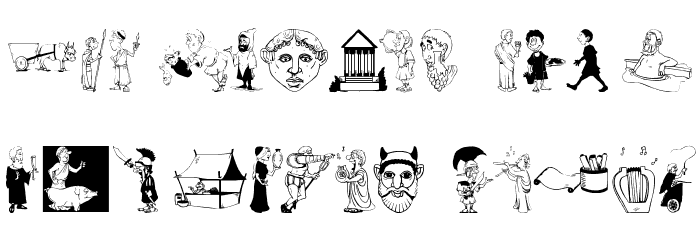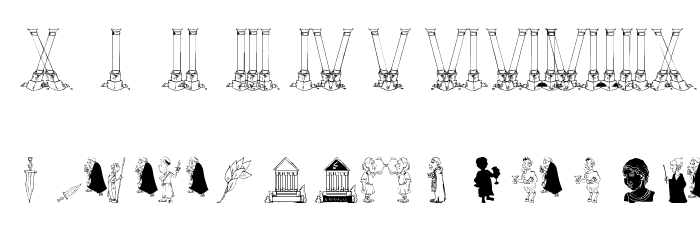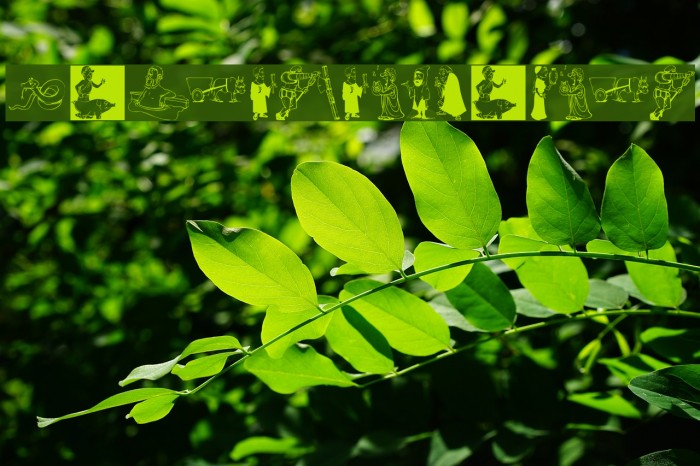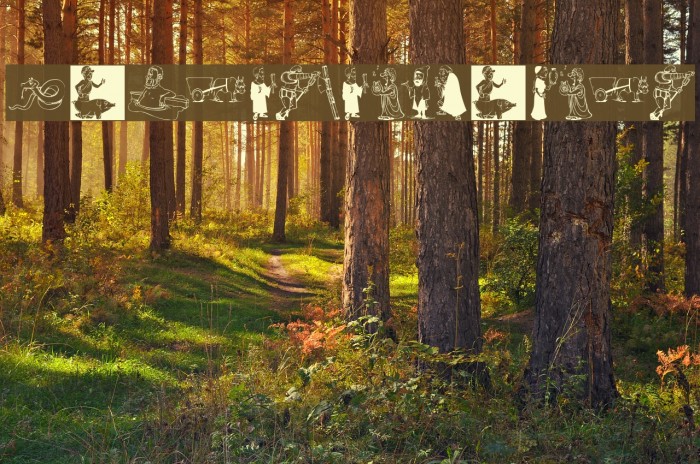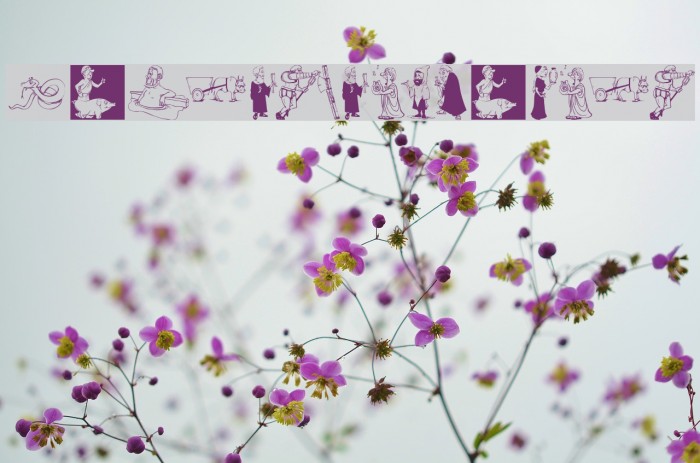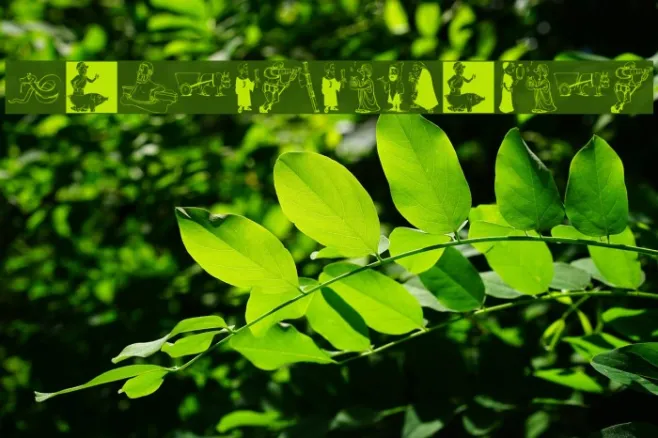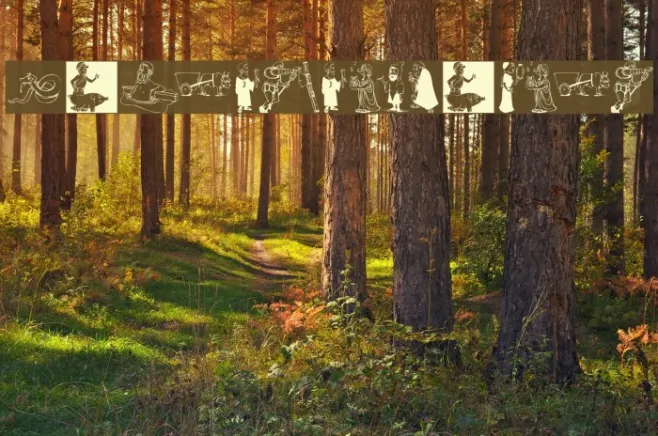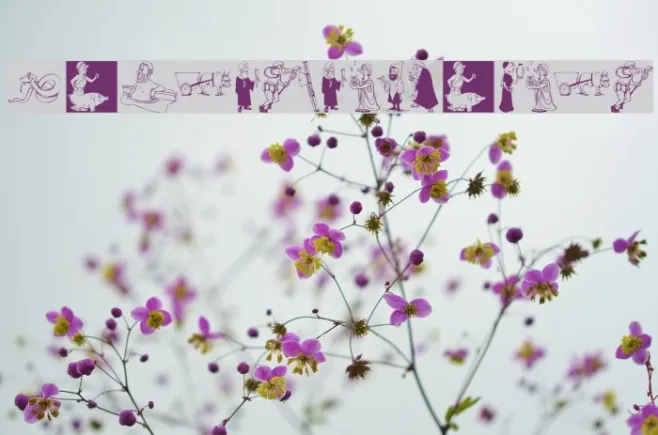
RomansAntePortas Font
This is a decorative font featuring a variety of Roman-themed illustrations. Each character is represented by a unique drawing, depicting elements from ancient Roman culture, such as soldiers, emperors, and architectural motifs. The style is playful and cartoonish, with detailed line work that captures the essence of Roman history in a whimsical manner. The font is not designed for traditional text but rather for creative projects that require a historical or themed visual element. The characters are intricately designed, making them suitable for large displays where the details can be appreciated.
A decorative font with Roman-themed illustrations, ideal for creative projects.
- Proposed Projects: This font is perfect for educational materials about Roman history, themed event invitations, or creative posters that require a historical touch.
- Use Case: Logos, Posters, Educational Materials